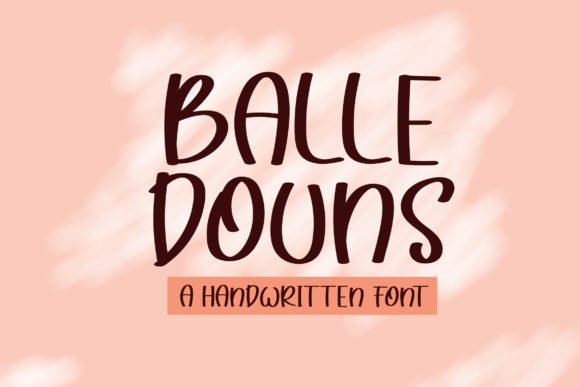
Discover the Whimsy of Balle Douns Font
Have you ever stumbled upon a font that makes you feel like you’re channeling your inner child? A font that’s so charming, it instantly sparks a wave of creativity and makes you want to create something truly special? That’s exactly what happens when you come across the Balle Douns Font. This adorable handwritten font is more than just a typographical style – it’s an invitation to let your imagination run wild.
Balle Douns Font is a unique and captivating font that’s perfect for designers looking to add a touch of personality to their projects. Whether you’re working on a branding project, creating a social media campaign, or designing a wedding invitation, this font is sure to bring a smile to your face and a dash of whimsy to your designs. With its timeless style and quirky charm, Balle Douns Font is an invaluable asset for any designer looking to create truly spectacular designs.
Balle Douns Font Key Features
- Unique Characteristics: Balle Douns Font features a unique blend of traditional and modern design elements, making it an ideal choice for projects requiring a distinctive and eye-catching aesthetic.
Balle Douns Font Review
Overall, I think Balle Douns Font is a decent font with some nice features, but also some limitations. Here’s what I like and dislike about it.
- Unique and playful design: Balle Douns Font has a distinct and quirky style that can add a lot of character to your designs.
- Good for titles and headings: The font is quite legible and can be used effectively for titles and headings due to its clear and bold lines.
- Supports multiple languages: The font supports a wide range of languages, making it a versatile choice for global designs.
- Limited expressiveness in body text: While the font is great for titles, it can become too playful and hard to read when used for large blocks of body text.
- No bold or italic weights: The font lacks bold and italic weights, which can limit its versatility and flexibility in certain design contexts.
- May not be suitable for formal designs: The font’s playful style may not be suitable for formal or professional designs, where a more conservative and traditional font may be preferred.
Balle Douns Font is a fun and quirky font that can add a lot of personality to your designs. However, it’s not a one-size-fits-all solution, and you may need to use it in moderation or pair it with other fonts to achieve the desired effect. With a bit of creativity and careful selection, Balle Douns Font can be a great addition to your design toolkit.
Balle Douns Font Practical Application Guide
For the best results, use Balle Douns Font in bold or italic styles to add emphasis to your text. You can also pair it with other fonts to create a unique design.
Balle Douns Font is ideal for creating eye-catching headings, titles, and captions. It’s also great for designing social media graphics, posters, and flyers.